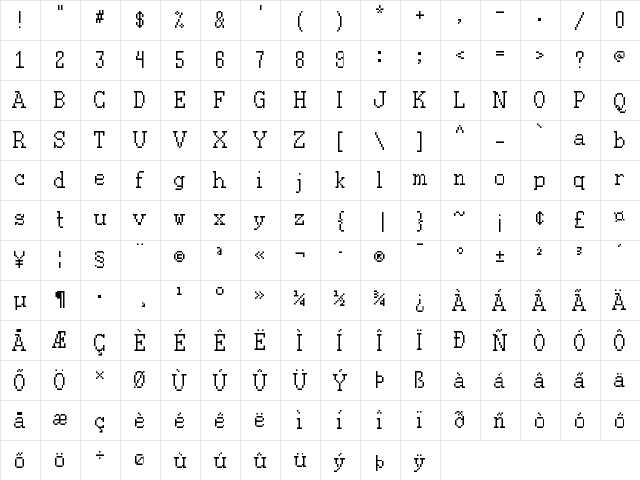
untilted Regular
| Designer | ssaamm |
Design Context for untilted Typeface
untilted is a composed and adaptable typeface that performs quietly and consistently across a wide range of design contexts.